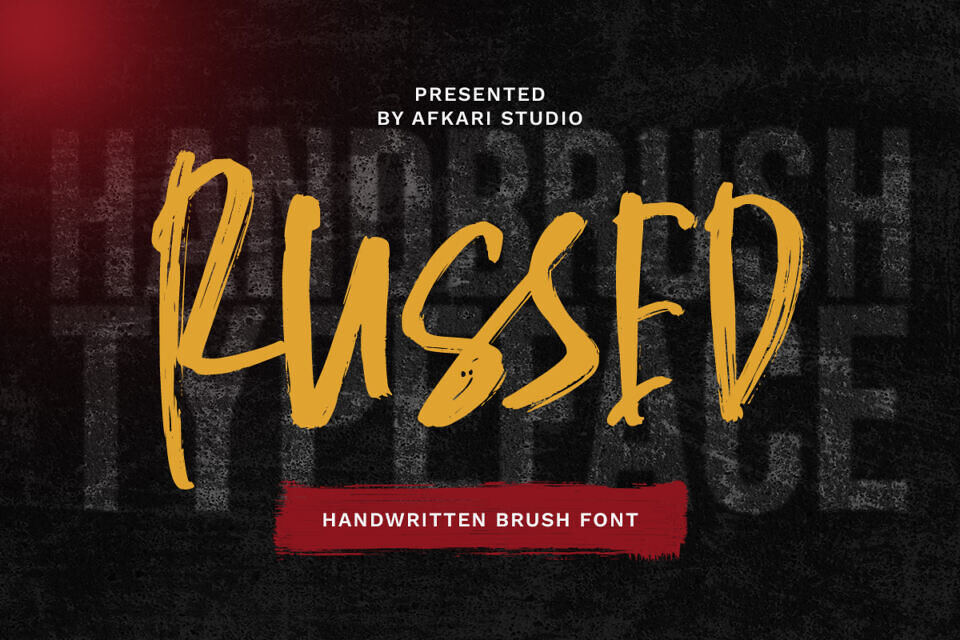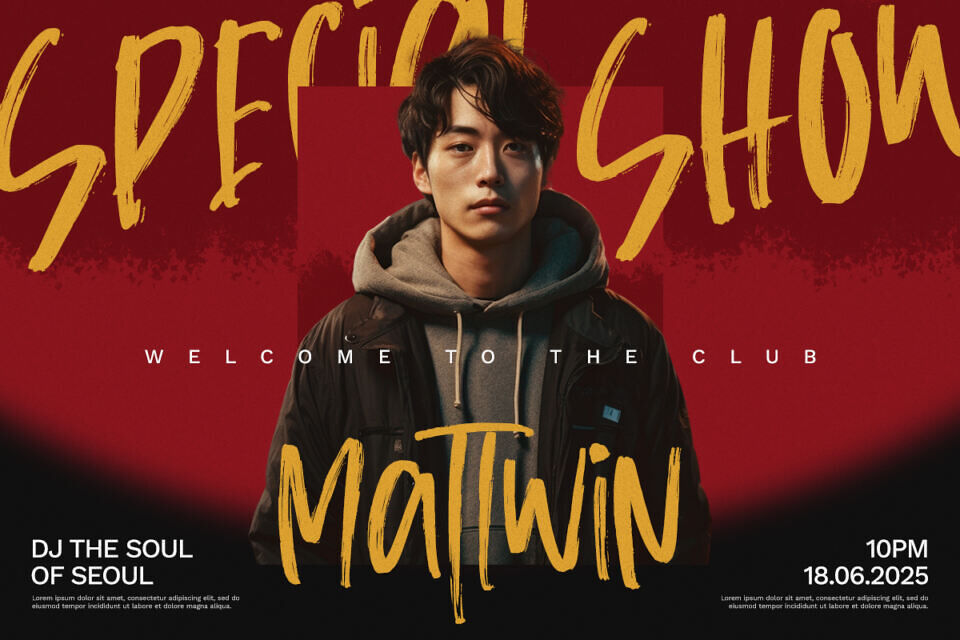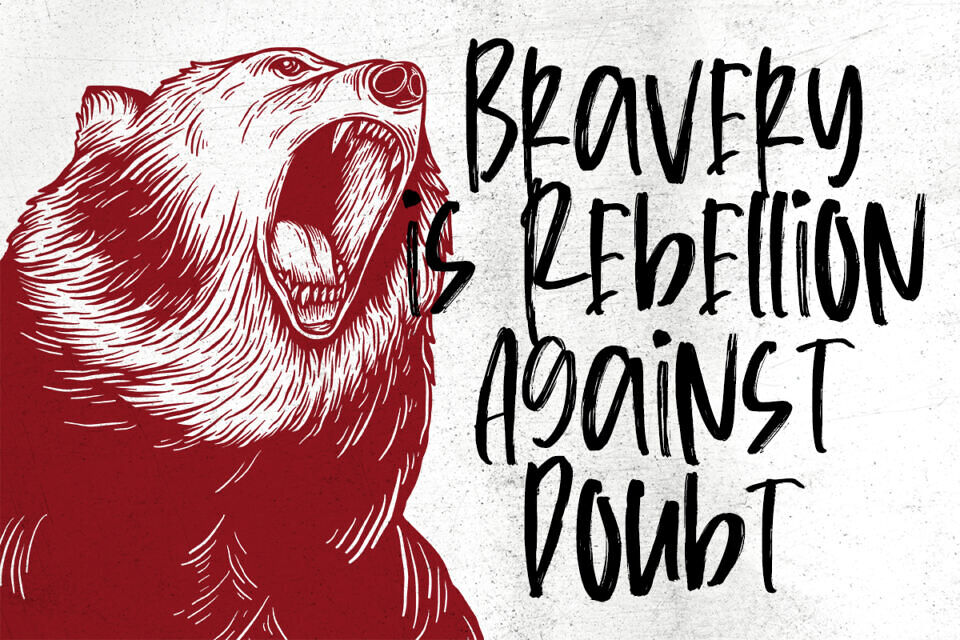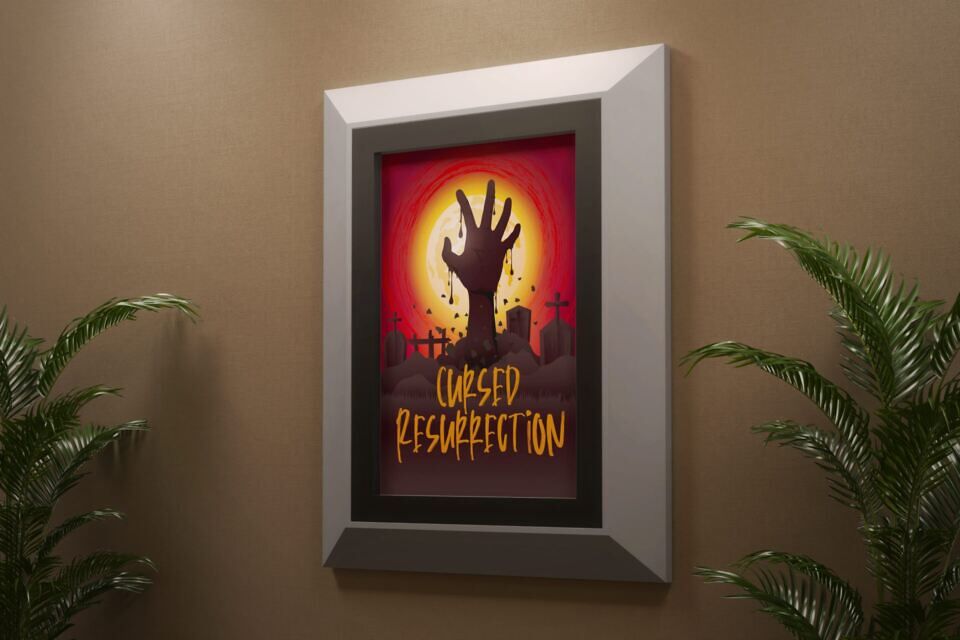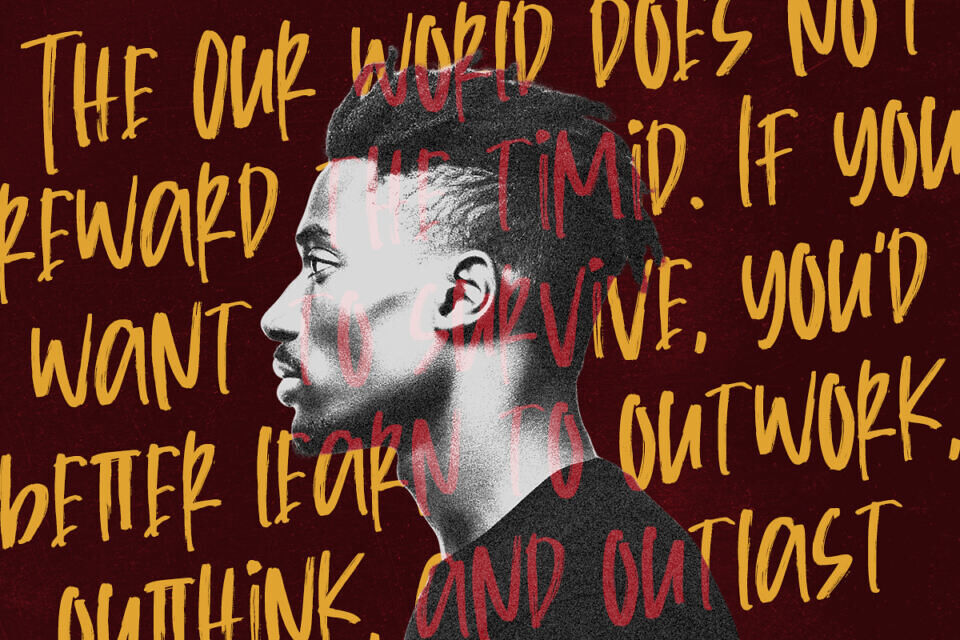
Russed is a bold and expressive handwritten brush font that brings raw energy and personal charm to your designs. Inspired by real brush strokes, Russed delivers an authentic handmade look — perfect for projects that demand both creativity and attitude.
Russed gives your text a dynamic and artistic flair. Its natural flow and textured edges make it feel like the words were painted directly onto the canvas.